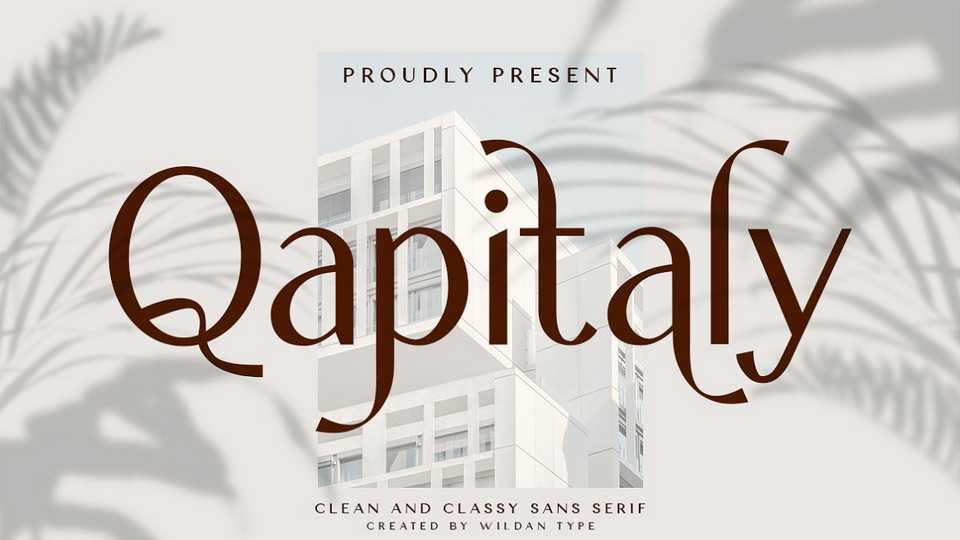
Download Qapitaly font, a display sans serif typeface inspired by the beauty of modern sans and calligraphic style, fused with elegant appeal to blend with modern needs.
Designer: Wildan Type